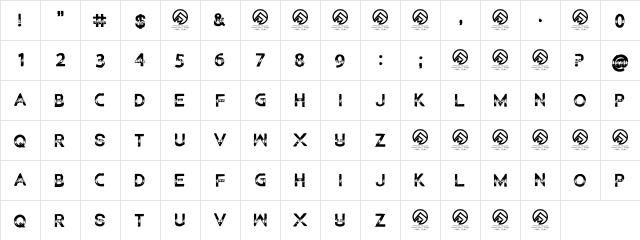
Children Among Lions Regular
Design Context for Children Among Lions Typeface
Children Among Lions trades formality for fun, with bouncy, characterful letterforms that bring warmth and energy to any project.
Font Pairing: Pairs well with a rounded or humanist sans for body copy, maintaining the friendly tone without relying on Children Among Lions to carry extended reading.
Pro Tip: Use Children Among Lions at larger display sizes where its expressive character can land. Pair with a clean, simple sans for body copy to maintain readability.